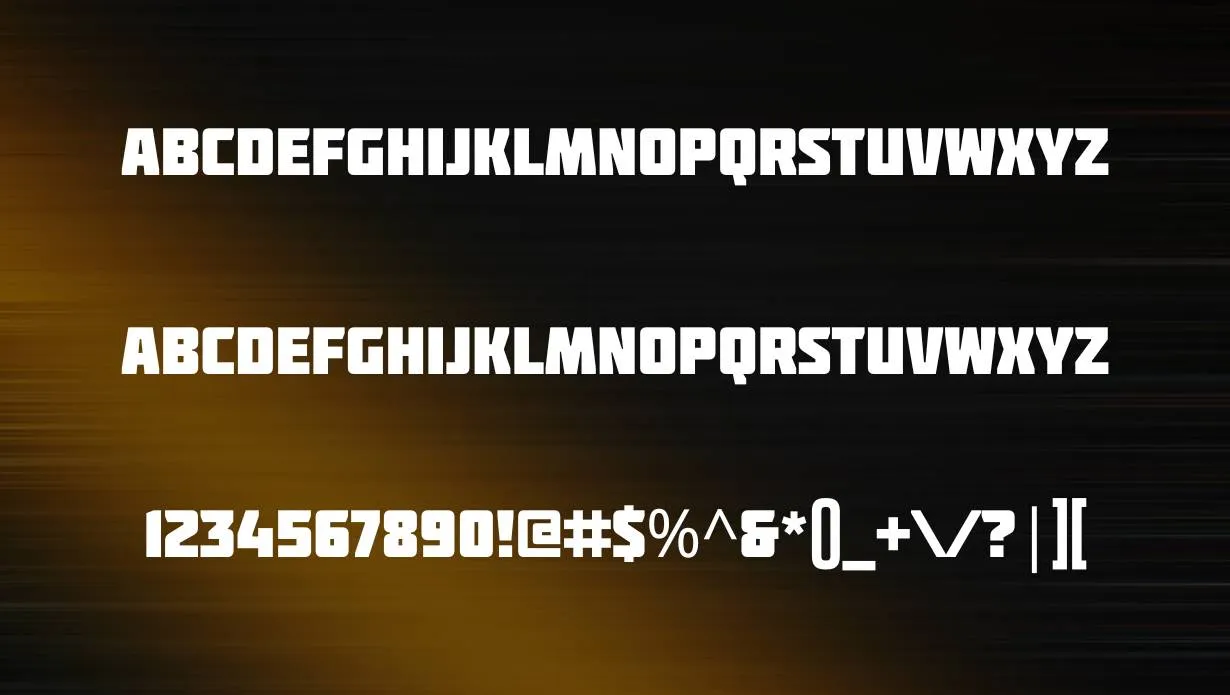
Molot Font is a strong and impactful typeface that is frequently selected for projects needing a bold and memorable visual statement.
Molot Font Family
| Name | Molot Font |
| Designer | Roman Yershov |